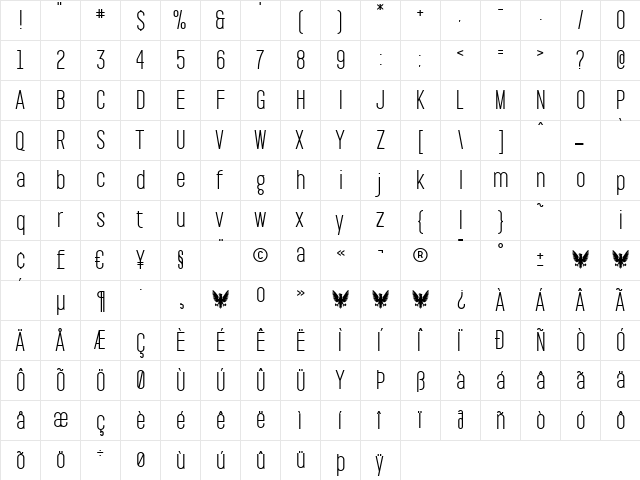
Pakt Regular
| Foundry | YouWorkForThem |
| Designer | Michael Cina |
Design Context for Pakt Typeface
Pakt offers clean, dependable letterforms without strong stylistic allegiance, making it a practical choice for designers who need flexibility.